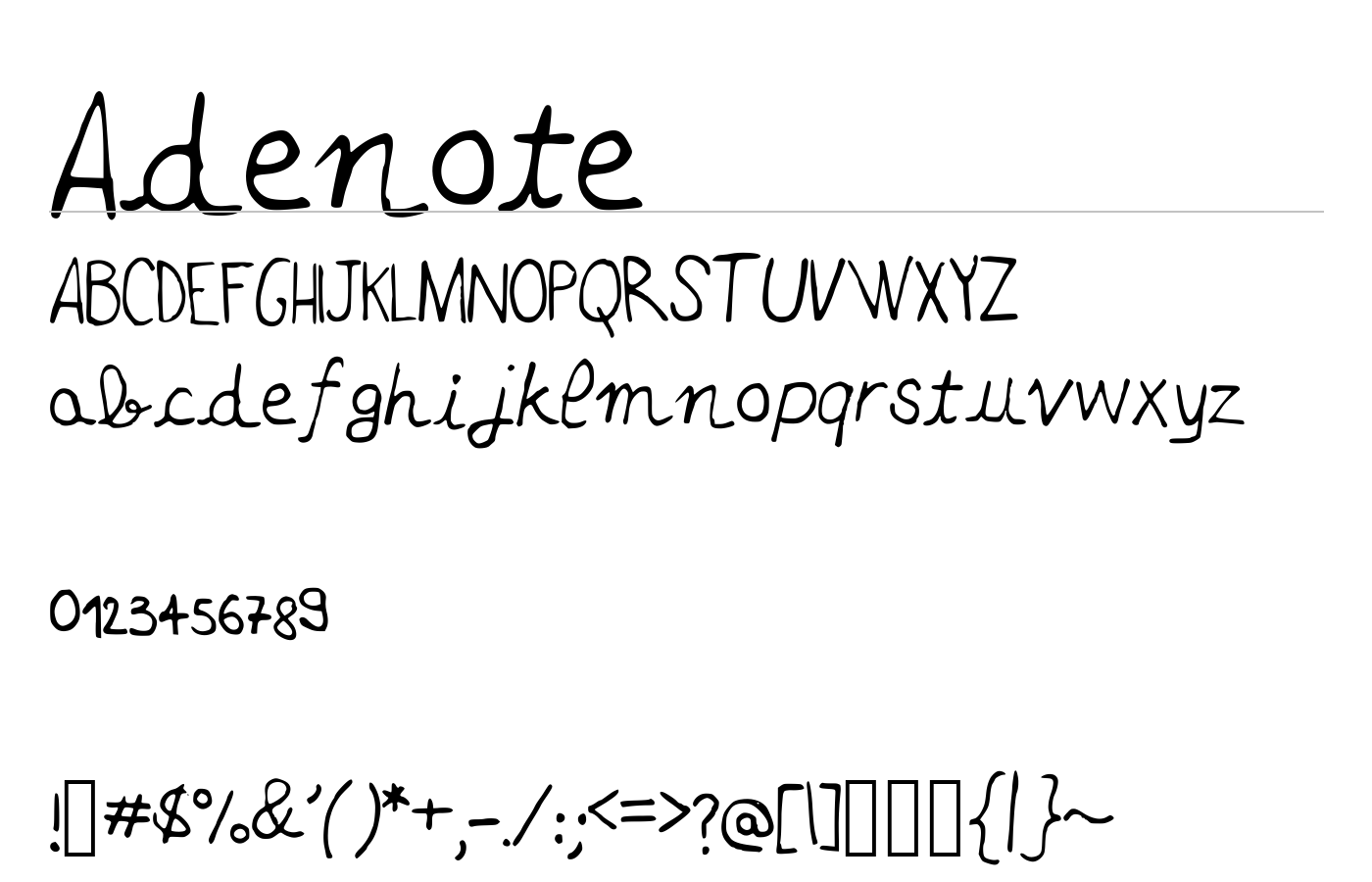
Adenote is a playful handwritten sans serif font featuring irregular, slightly tall letterforms with a quirky, casual charm. Its light weight and uneven strokes give it a friendly, informal feel, making it perfect for creative projects, children’s materials, or any design seeking a personal, approachable touch. This font works well in headlines, invitations, and branding that benefits from a warm, human vibe.
Adenote Font
About Adenote Font